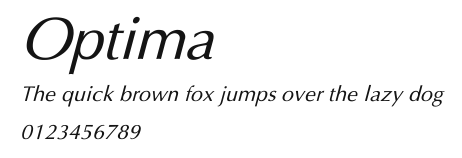
Optima.ttf is a modern, elegant sans-serif font designed for ultimate readability and visual harmony. Perfect for branding, headlines, web design, and print materials.